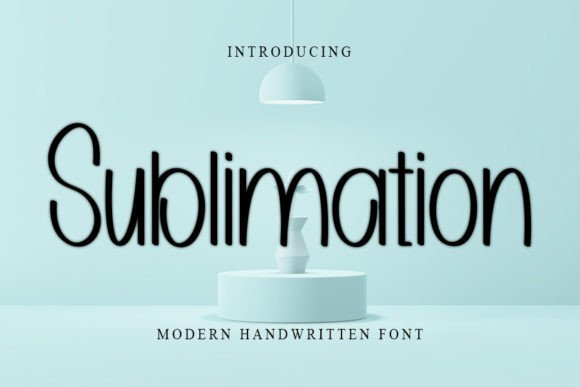
Introducing Sublimation: A Timeless Handwritten Script
The Sublimation handwritten font brings a refined and graceful personality to any design it graces. With its neat curves and sophisticated letterforms, it effortlessly enhances creative work with an elegant flair. This script is not only stylish but also versatile, making it an excellent choice for both formal and casual design needs.
Ideal for Elegant and Personal Designs
When you’re looking to convey a message with beauty and warmth, Sublimation is a perfect option. It works wonderfully for:
Wedding invitations
Personalized cards
Luxury brand logos
Stylized quotes
High-end packaging
Its hand-drawn charm evokes sincerity and sophistication, making it especially suitable for moments that matter.
Why Designers Choose Sublimation
Sublimation stands out from other handwritten fonts thanks to its:
Clean and consistent line weight
Excellent readability even at smaller sizes
Balanced spacing and gentle flow
Timeless appearance that complements both modern and classic themes
Moreover, the font’s understated elegance ensures that your message remains the focal point, while its artistry subtly elevates your design.
Versatility for All Your Projects
From digital graphics to printed materials, the Sublimation handwritten font adapts beautifully. Here are just a few project ideas where it shines:
Wedding stationery
Social media graphics
Gift tags and thank-you notes
Handmade product labels
Custom mugs and t-shirts
Blog headers and email newsletters
Add Grace and Emotion to Your Typography
In design, the choice of font is not just aesthetic—it’s emotional. Sublimation allows you to communicate sincerity, love, and elegance through its delicate forms. This makes it perfect not just for romantic events but also for upscale product lines, artistic branding, and heartfelt messages.
To sum up, the Sublimation handwritten font is a beautifully crafted typeface that enhances the personality of your creative work. Its elegance and balance make it a standout script for a wide range of applications. Whether you’re designing for weddings, branding, or personal gifts, this font is sure to leave a lasting impression.